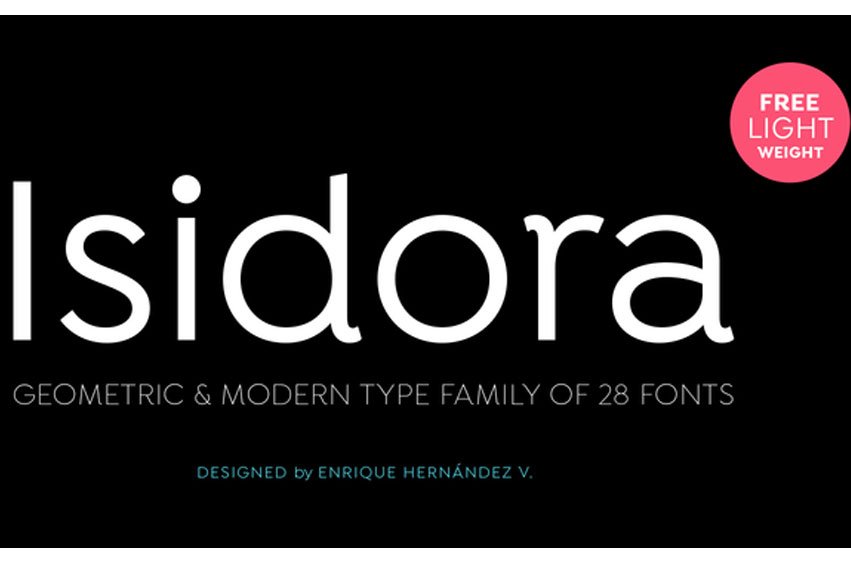
Isidora Font
Isidora Font is a modern geometric font which is based on the early 20th Century typefaces but at the same time it incorporates modern design elements.
Even though it has a strong structure, its round terminals make it look more friendly and emotional; the diagonal cuts soften the effect for a humble and comfortable finish.